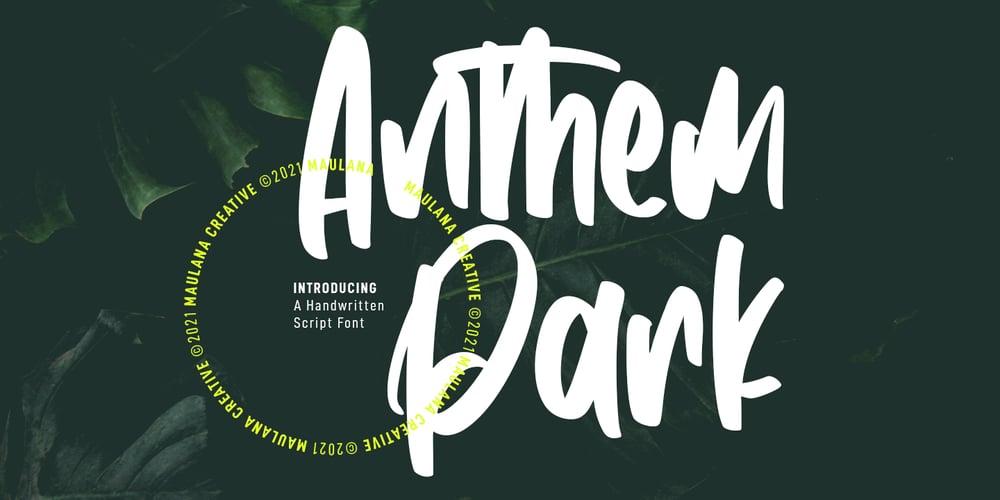
Anthem Park Font Family was designed by Gilang Maulana and published by Maulana Creative. Anthem Park contains 1 styles and family package options. Anthem Park is a handwritten script font. With medium felt tip stroke, Condensed and fun character with a bit of ligatures. To give you an extra creative work. Anthem Park font support multilingual more than 100+ language. This font is good for logo design, Social media, Movie Titles, Books Titles, a short text even a long text letter and good for your secondary text font with sans or serif. Make a stunning work with Anthem Park font.Cheers, MaulanaCreative